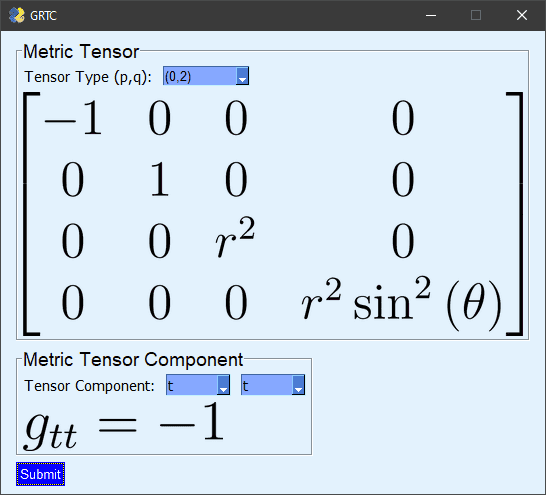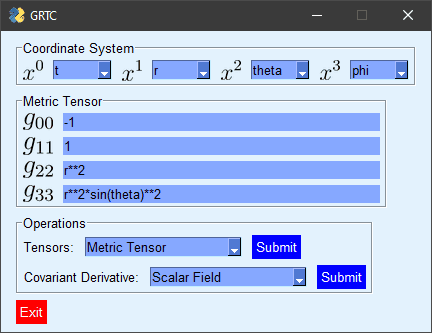
Default Fonts in all operating systems
I am writing software, and I want it to be compatible with all operating systems. I have searched some sites, and I have decided to use Bookman, Georgia, and Tahoma. They seem to be default for windows, but I cannot say the same thing for Mac and Linux or other operating systems. What are the safest but also good looking default fonts that I can pick to write the code?
In Ubuntu, a popular version of Linux:
LibreOffice Writer (the equivalent of "Word") starts up in "Liberation Serif";
LibreOffice Impress (the equivalent of "PowerPoint") starts up in "Liberation Sans"; and
LibreOffice Calc (the equivalent of Excel) also starts up in "Liberation Sans".
Times New Roman seems to have been accepted virtually everywhere. It is as old as the hills. Many publications may default to other fonts for a variety of reasons, but that is not the same as saying that those fonts are the most universally available.
Times New Roman is not available in the default installations of Ubuntu or LibreOffice.
I don't believe that Times New Roman is available under the GNU General Public License or any similar "free" license. It and numerous variants have been released with Windows OS's.
Times New Roman is not available in the default installations of Ubuntu or LibreOffice.
I don't believe that Times New Roman is available under the GNU General Public License or any similar "free" license. It and numerous variants have been released with Windows OS's.
I stand corrected. It is the default in my LibreOffice Writer for Windows. I wonder if I downloaded more fonts years ago and have forgotten.
You also need to specify the use. Times and Arial were designed for printing, while Georgia and Verdana were designed for onscreen viewing. We may think the differences are minor, but font designers put a lot of effort into incrementally small improvements.
It is perfectly logical to use the same software to produce printed documents and onscreen viewable documents.
Times New Roman is not available in the default installations of Ubuntu or LibreOffice.
You can get it in Ubuntu by enabling the multiverse repository and installing the ttf-mscorefonts-installer package. That also makes it available in LibreOffice.
I don't believe that Times New Roman is available under the GNU General Public License or any similar "free" license. It and numerous variants have been released with Windows OS's.
AFAIK the license even for the Linux install I mentioned above, while it isn't an Open Source license, is pretty permissive as far as documents are concerned. I don't know about applications, though.
It is the default in my LibreOffice Writer for Windows. I wonder if I downloaded more fonts years ago and have forgotten.
If you are running Windows, you didn't need to install it. Microsoft owns the rights to use it. LibreOffice will use whatever is available in the OS.
What are the safest but also good looking default fonts that I can pick to write the code?
Why does your software have to depend on specific fonts?
It is perfectly logical to use the same software to produce printed documents and onscreen viewable documents.
As an example, HTML pages can use style blocks ( <style>...</style> - often in *.css files ) to specify how the font is selected and within a <style> block, "@media print" can be used to specify alternative fonts (and other style controls) for use when the HTML page is printed.
PeterDonis said:
Why does your software have to depend on specific fonts?
I know from experience that picking a font that is not available can lead to trouble. If the font is not found, the font search may end on Wingdings and lead to surprising results.
FactChecker said:
I know from experience that picking a font that is not available can lead to trouble.
Yes, but every OS, AFAIK, gives programs a way to ask what fonts are available, or to say something like "pick the default serif font". That's why I'm wondering what kind of software the OP is writing that requires specific fonts to be chosen.
What I mean by software is actually the GRTC GUI program that I am working on. Its not going to run on web page. But the problem some operating system might not have the fonts that I am talking about (Tahoma, Bookmark, Georgia). I know that I can use Arial or Times new roman etc but I was looking for something more exotic (different looking) fonts but also exist in many systems...This is not an interesting question I know. Its just kind of a curiosty.
Yes, subject to any licensing constraints.
I was thinking to copy those font from my file and share it on github but as you said it might cause some problems for me, so I did not. In any case I have changed the fonts to Georgia, Verdana and Tahoma. In any case I have tried to type run the code with a font that does not exist on my system and the code still runs with a deafult font.